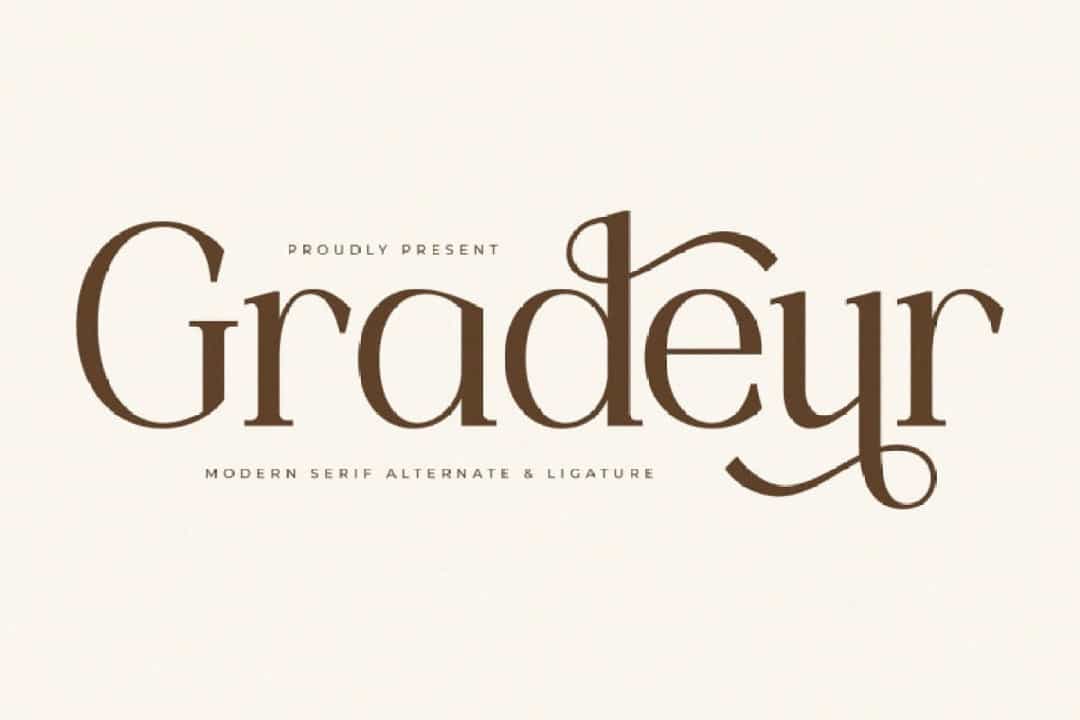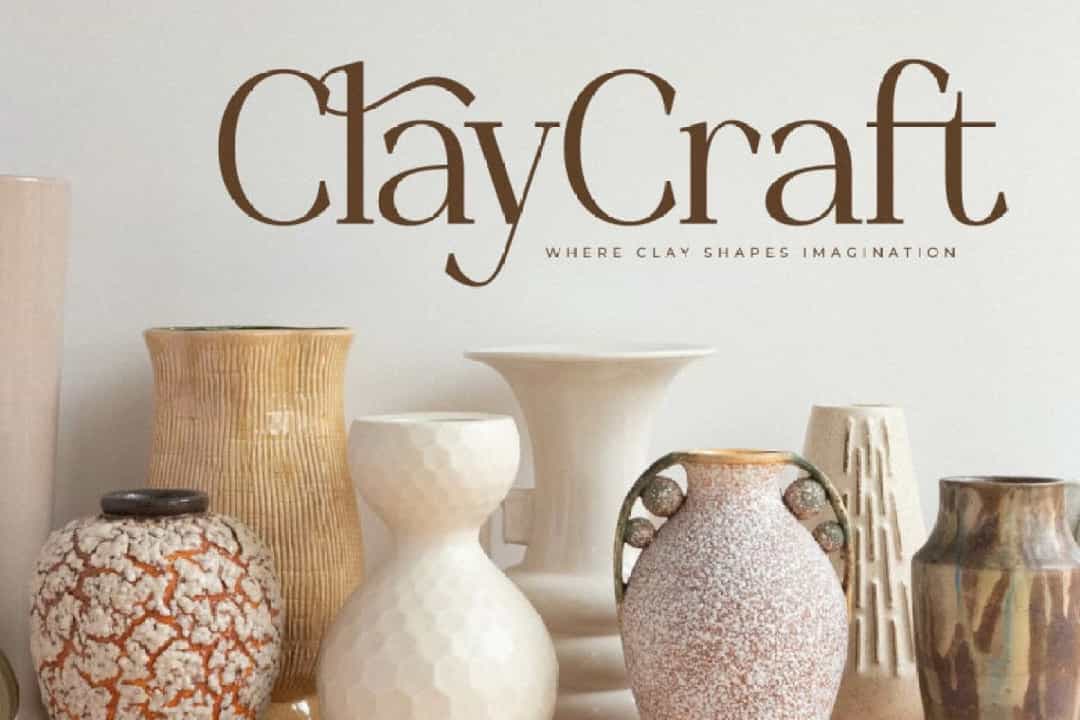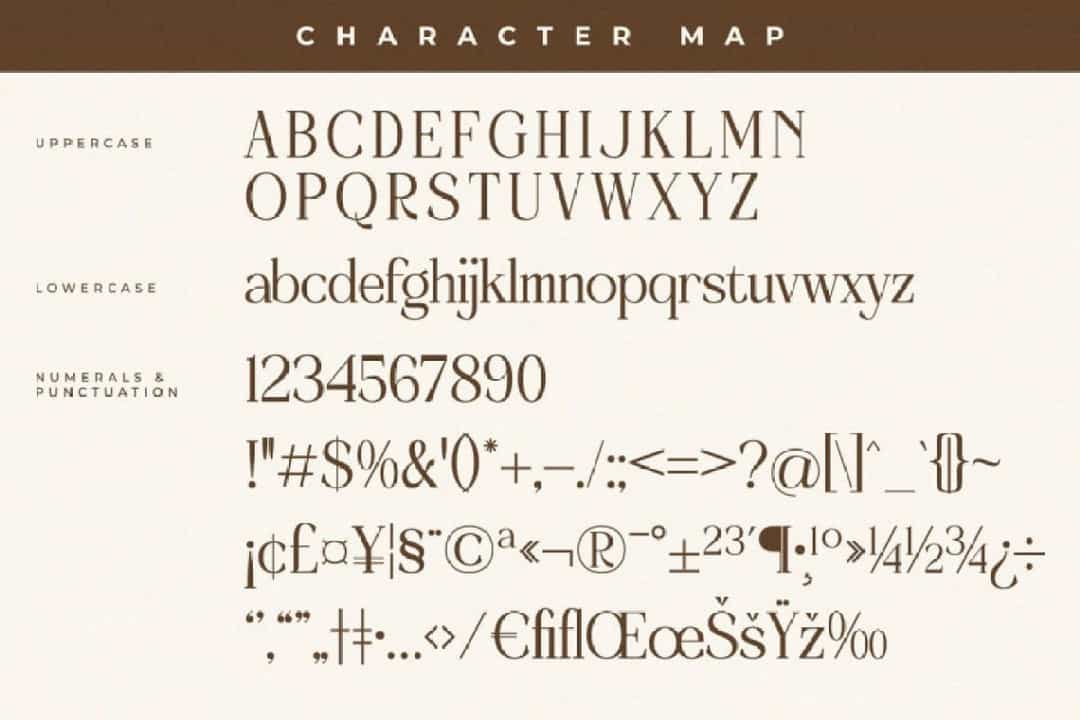
Gradur is a modern alternative ligature serif font with its distinctive style and modern appearance, perfect for creating luxurious logos, movie or book name designs, fashion brand clothing designs, magazine letters and quotes, quotes about literature or anything else you might need! This typeface offers plenty of opportunities for use!